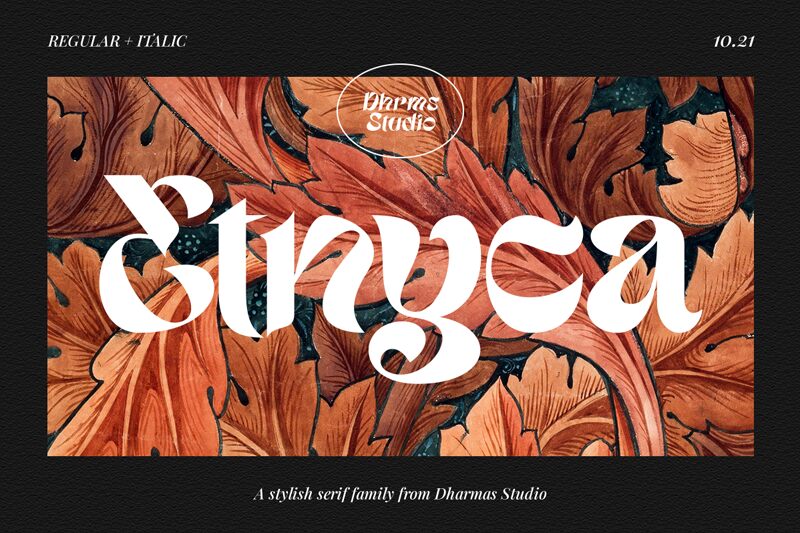
Introducing Etnyca, a bold and wide display font designed by Jamaludin Ahmad Sahestya Dharma. With its stylish serif, Etnyca is perfect for creating eye-catching headings, logos, branding materials and editorial designs. Its unique design makes it suitable for various projects such as fashion magazines, luxury brands, and modern websites that require a touch of elegance. Whether you're looking to make a statement or add sophistication to your work, Etnyca's bold wide letters will surely turn heads. Try it today and elevate your designs to the next level!